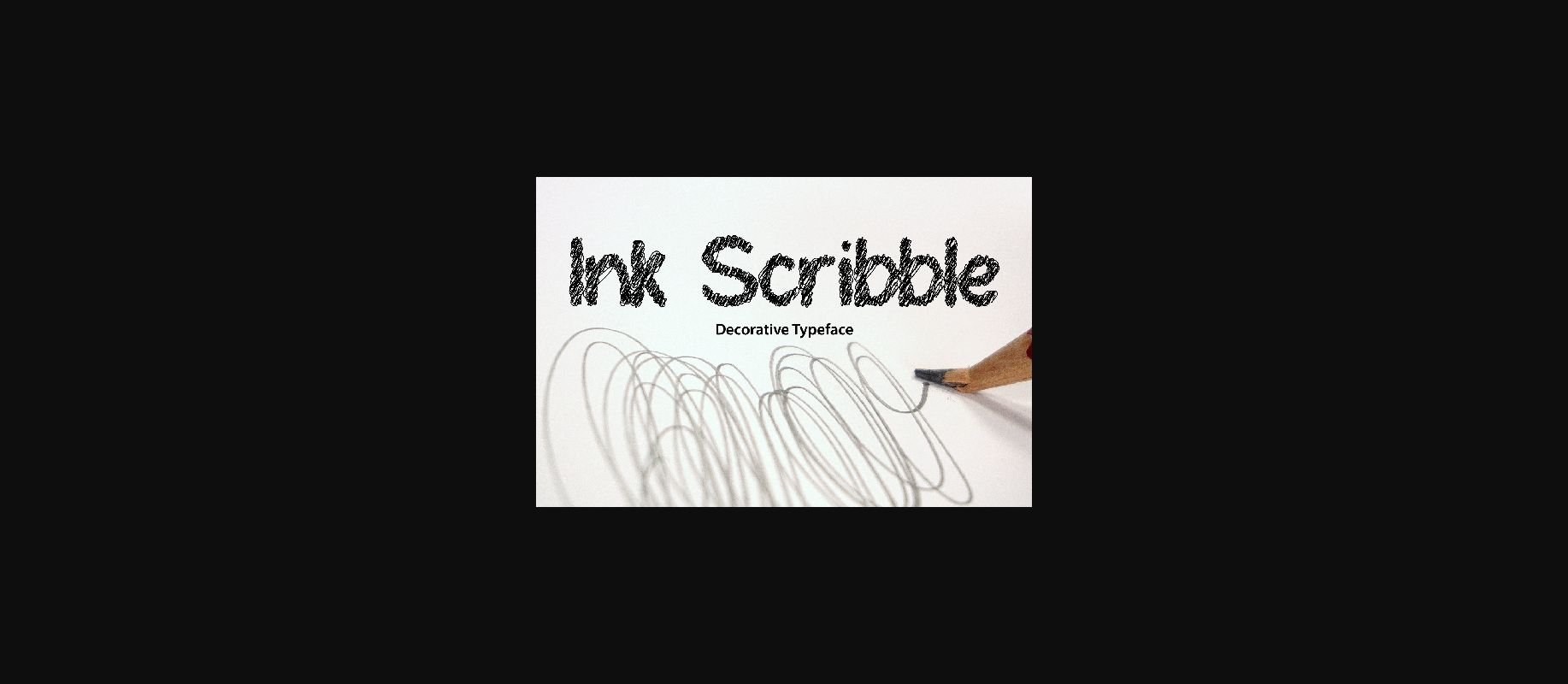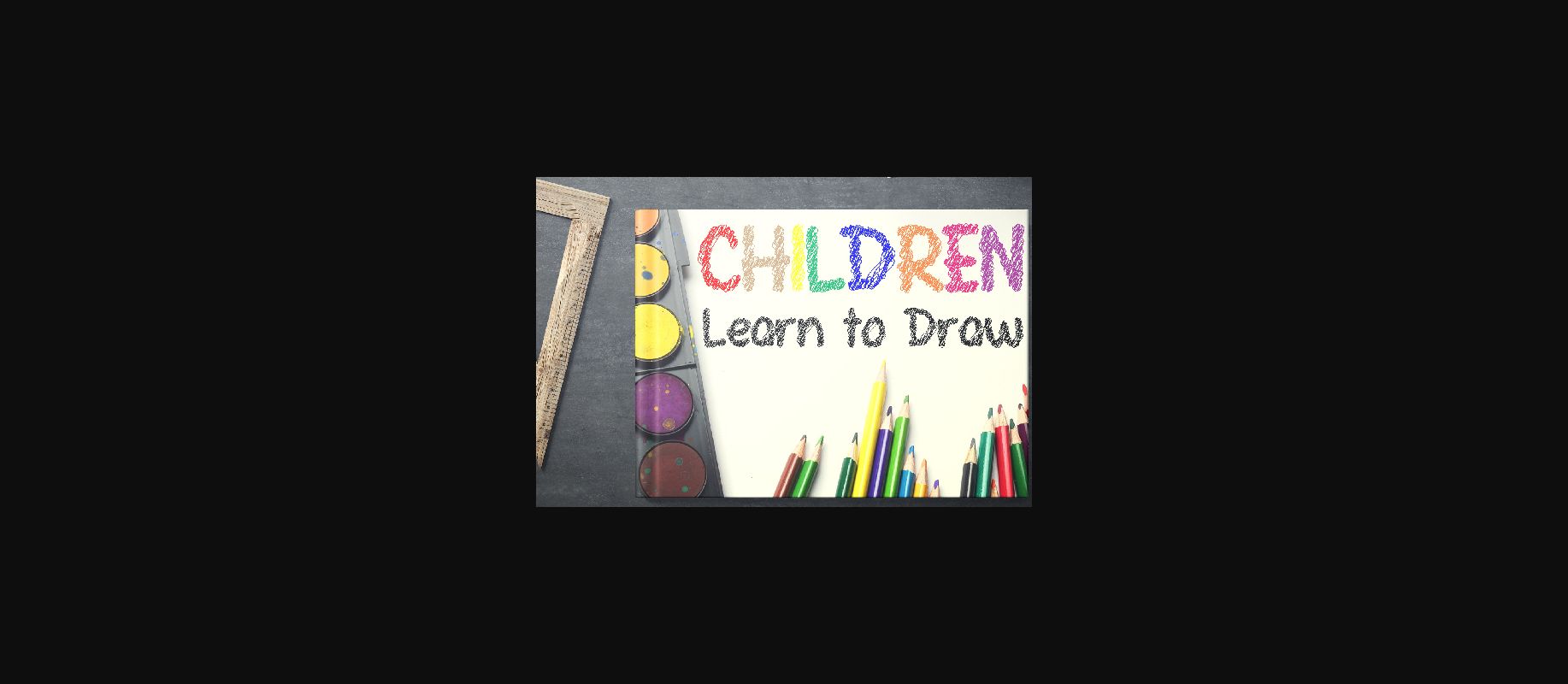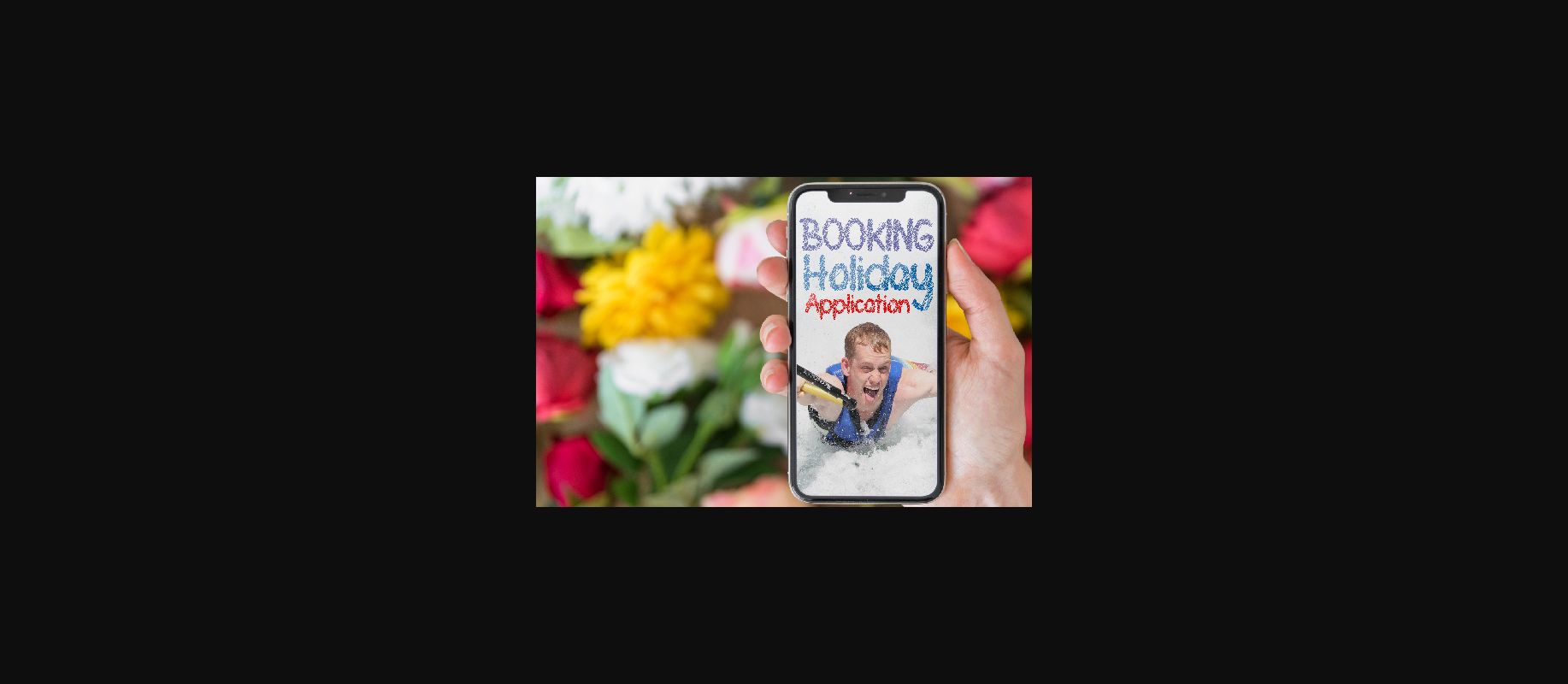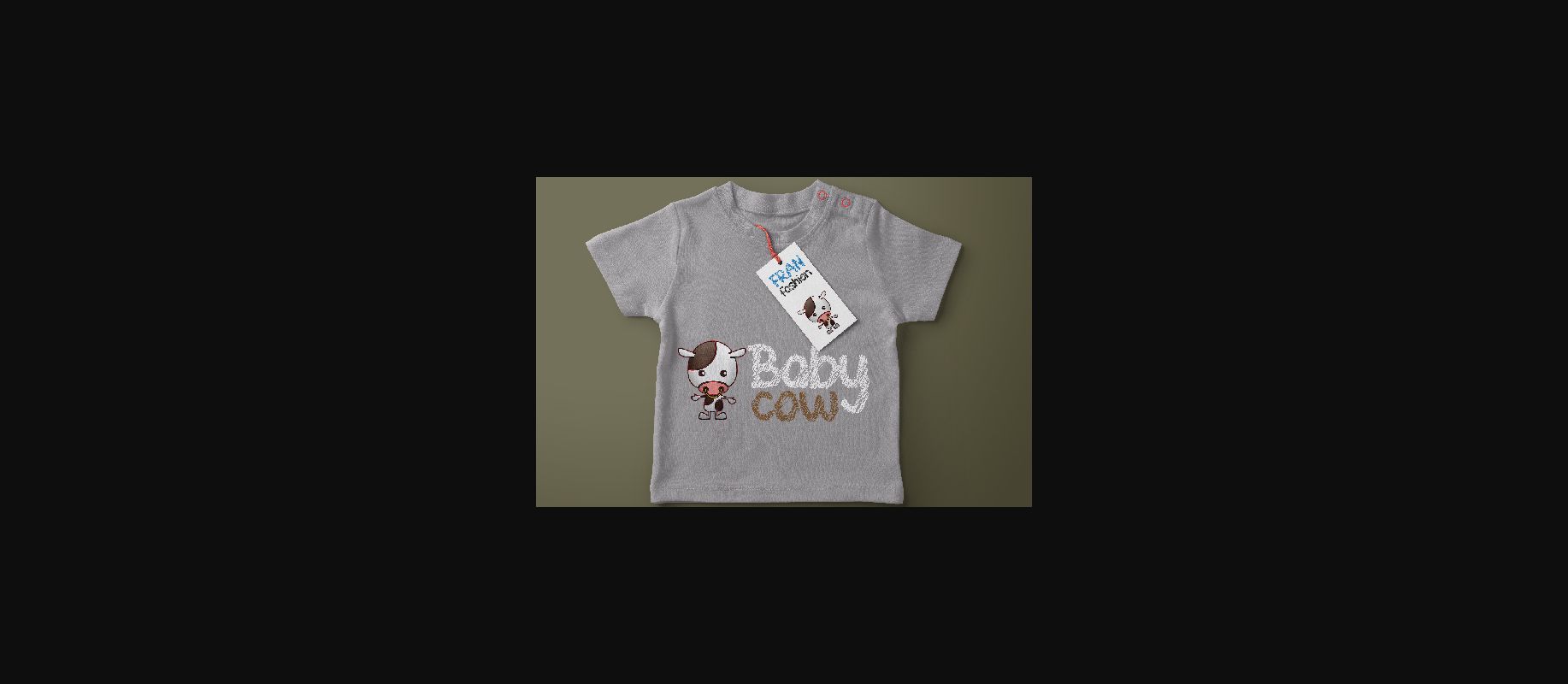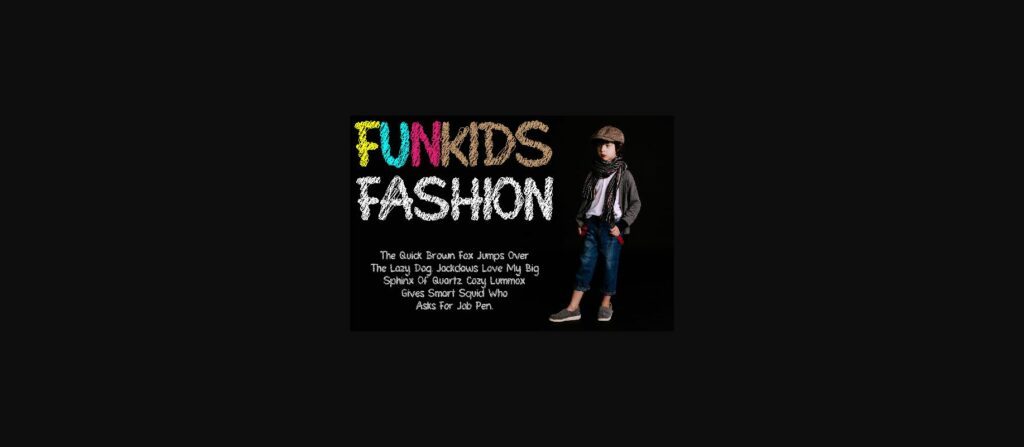
Ink Scribble Font
About Ink Scribble Font
Ink Scribble is a playful und authentic decorative font with an incredible unique style. Get inspired by its scribbled elements!